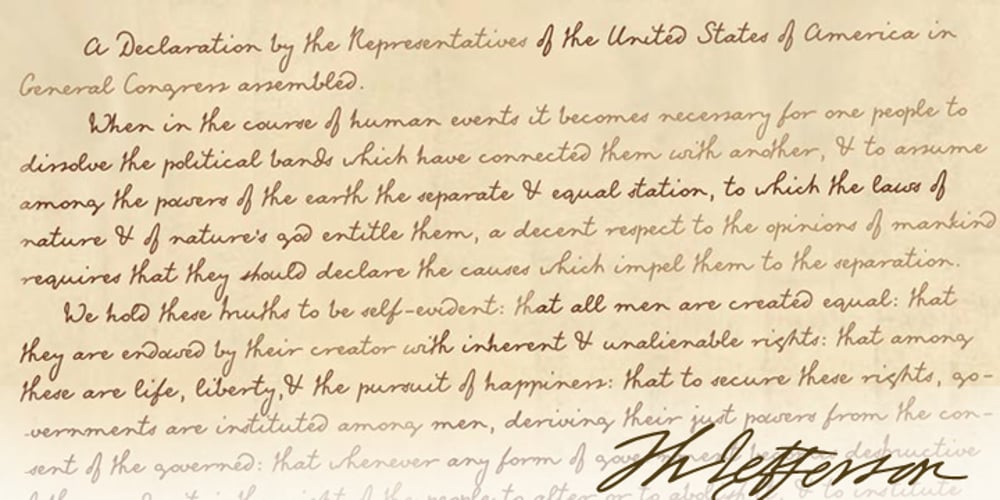
Jefferson Font Family was designed by Gennady Fridman and published by ParaType. Jefferson contains 1 styles and family package options. The script font “Jefferson” is based on real handwriting of Thomas Jefferson. Luckily there is a draft of original text of the Declaration of Independence written by Jefferson available . It was used as a primary source for this font. The Jefferson font was developed by Gennady Fridman for ParaType in 2005. It is in OpenType format with a contextual substitution of letterforms and specific ligatures.